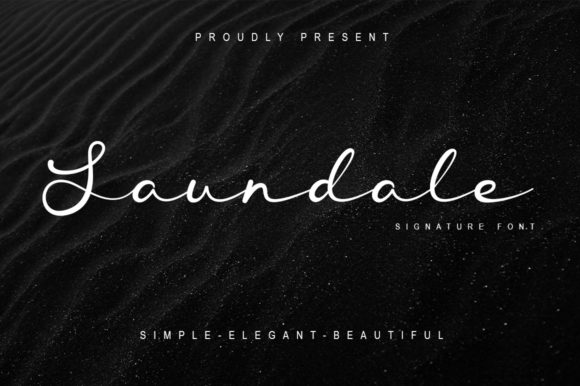
Introducing Saundale: The Exquisite Handwritten Masterpiece for Designers
In a world where first impression counts, Saundale emerges as the unsung hero; the captivating handwritten font that breathes life into your design dreams. With its delicate strokes and alluring curves, this font commands attention, leaving an indelible mark on your audience.
Unleash the Magic of Saundale
Envision a font that seamlessly fuses the classic elegance of calligraphy with the modern-day artistry of digital design. Saundale effortlessly achieves this balance, striking the perfect equilibrium between tradition and innovation. Its intricate letterforms, reminiscent of the masterful pen strokes of old, impart a sense of timeless beauty to your creations.
Craft Projects that Exude Luxury and Opulence
With Saundale by your side, unlock a new dimension of design possibilities. Create brochures that exude an aura of sophistication, leaving your audience awestruck. The font's impeccable lines and graceful shapes have an uncanny ability to transform ordinary designs into masterpieces, adding a touch of luxury that sets them apart.
Perfect for Designers with a Chic and Timeless Aesthetic
Embrace the versatility of Saundale and let your imagination soar. It's a font that seamlessly complements diverse design concepts, ranging from wedding invitations to marketing materials. With its aura of sophistication, Saundale effortlessly adds a touch of glamour to any printed or digital creation.
Attain Design Excellence with Saundale
Take your design prowess to unprecedented heights with Saundale, the font that discerning artists and aspiring creatives around the globe adore. Let this handwritten beauty guide your designs, and watch as it effortlessly transforms them into works of art.